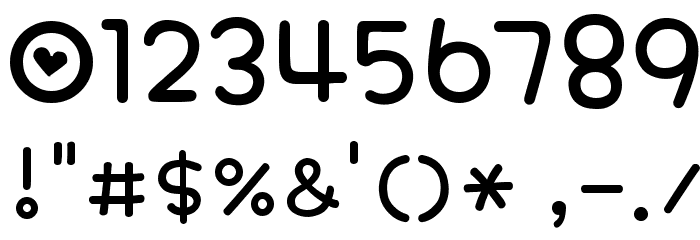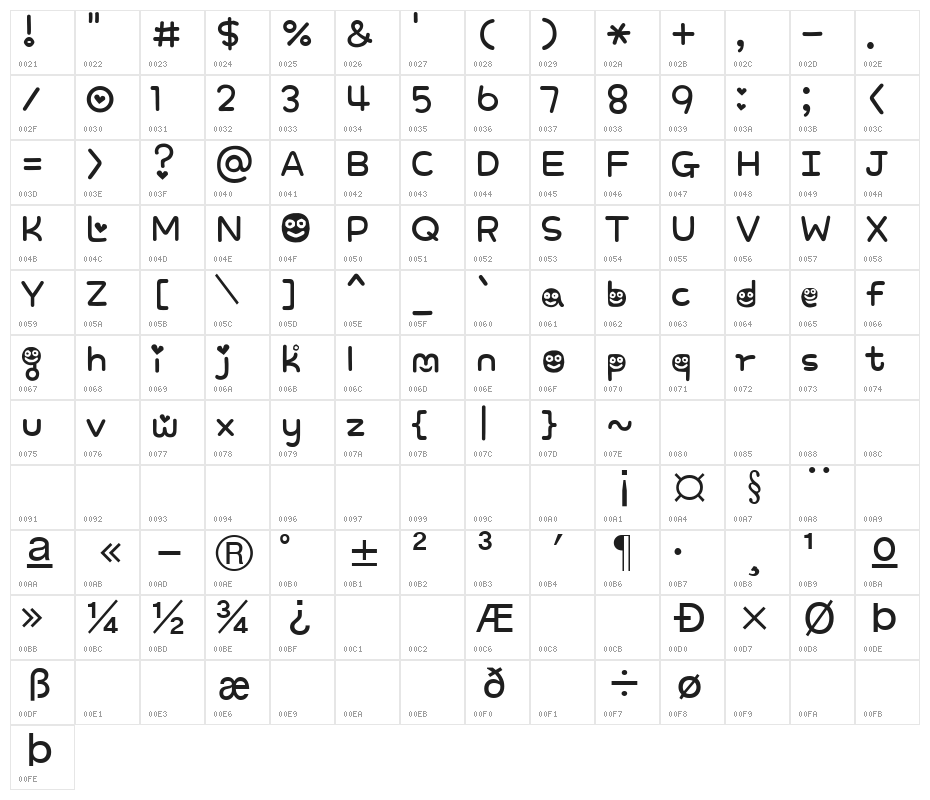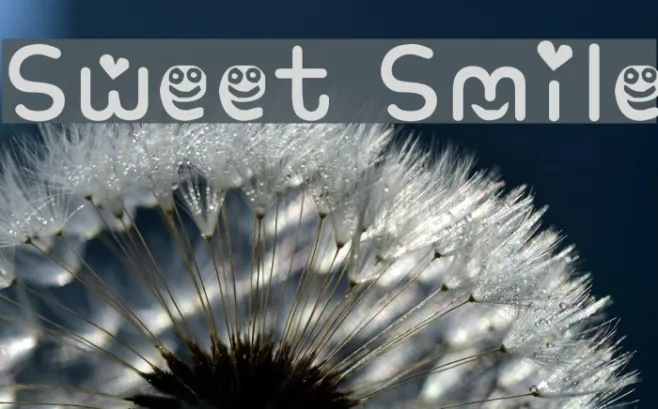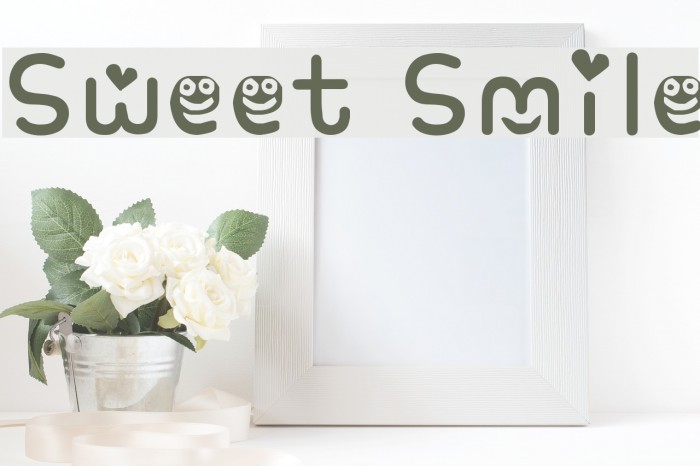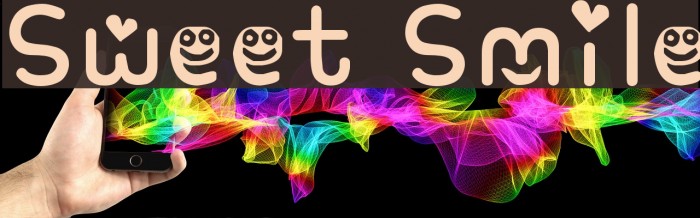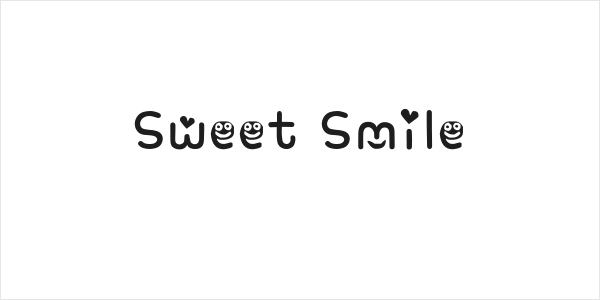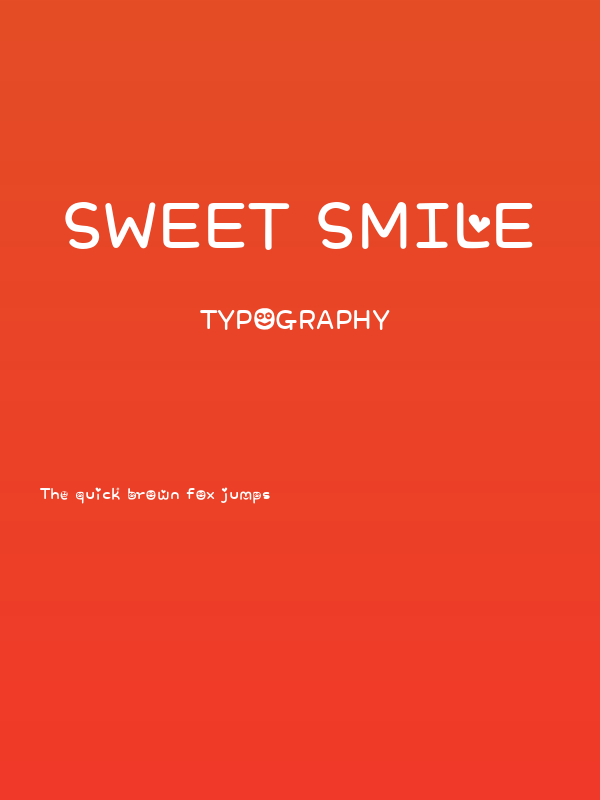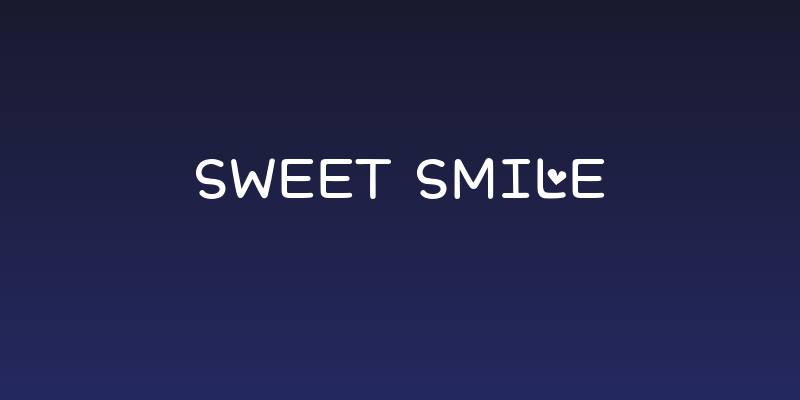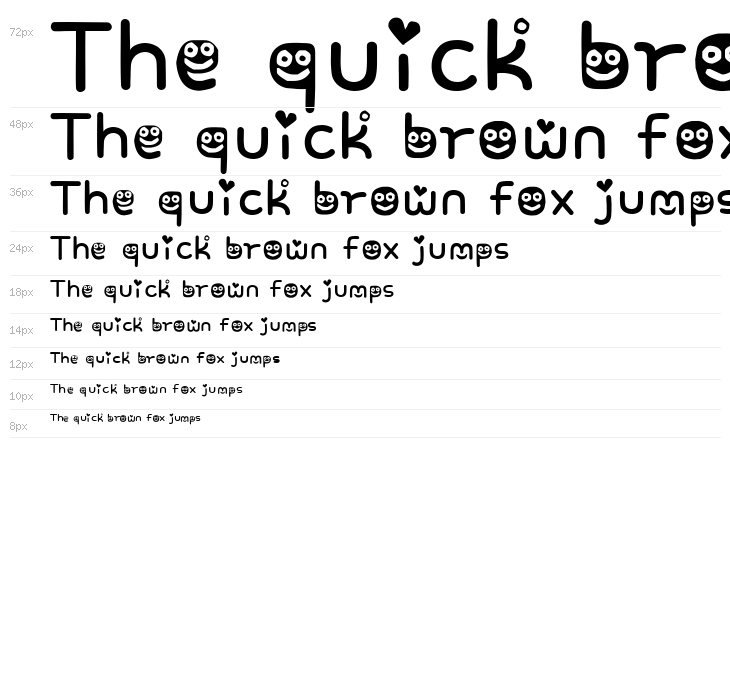
Sweet Smile Font
Sweet Smile Description
This playful and whimsical font features a unique design with smiley faces incorporated into certain letters, adding a cheerful and friendly touch. The characters are rounded and smooth, with a consistent stroke width that gives it a clean and modern appearance. The font includes both uppercase and lowercase letters, numbers, and a variety of special characters. Its distinctive style makes it stand out, particularly with the heart-shaped elements in some letters, enhancing its charm and appeal.
| Proposed Projects | Ideal for children's books, playful branding, greeting cards, and fun social media graphics. |